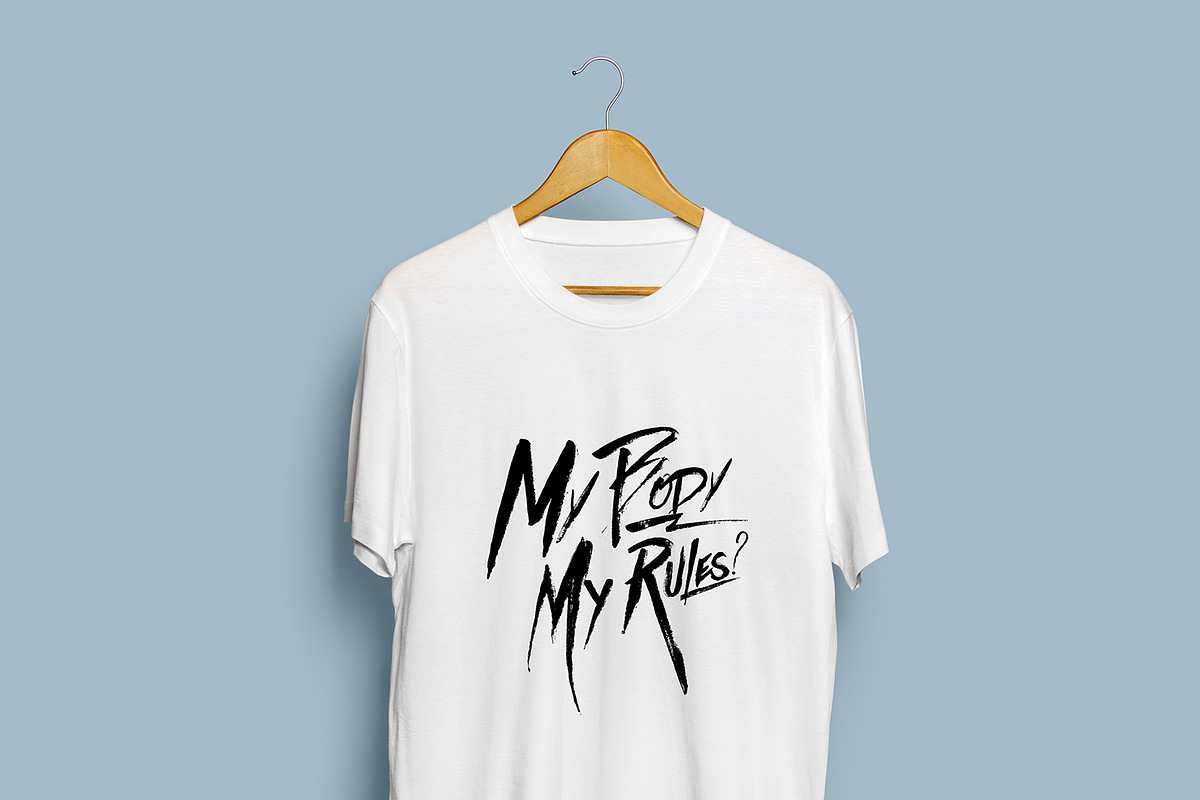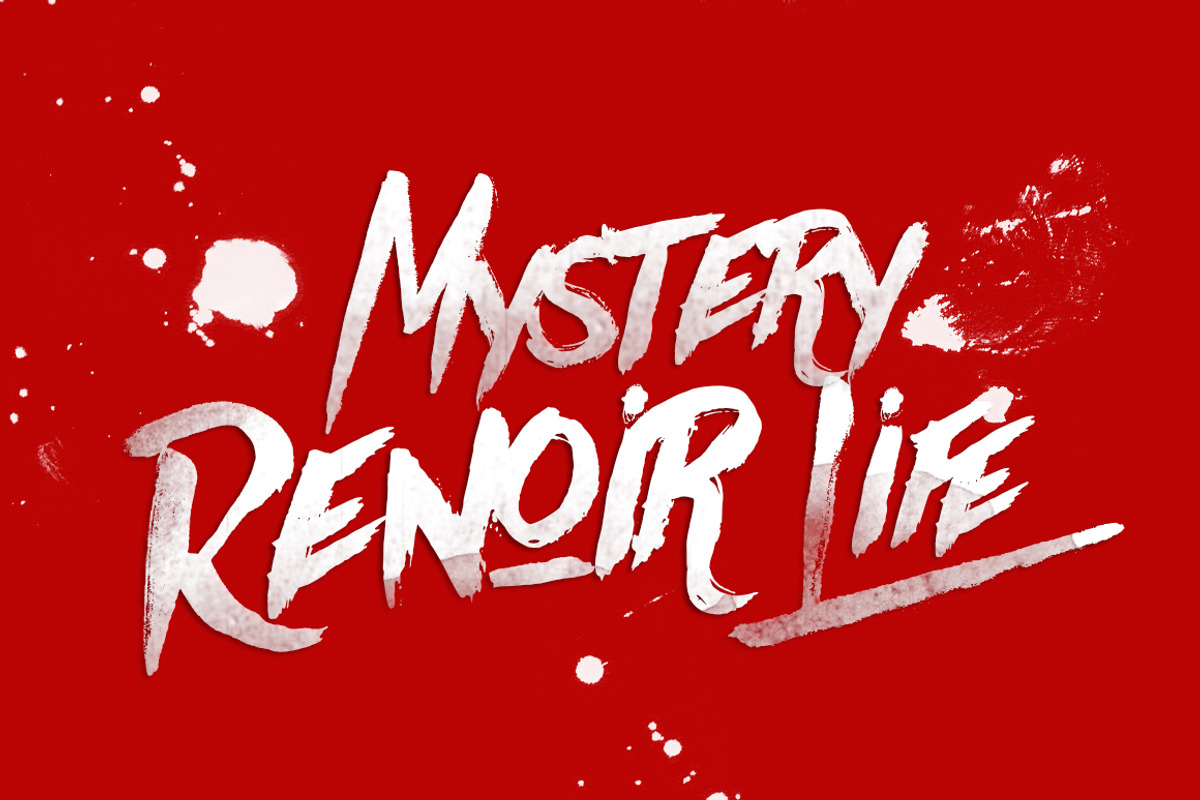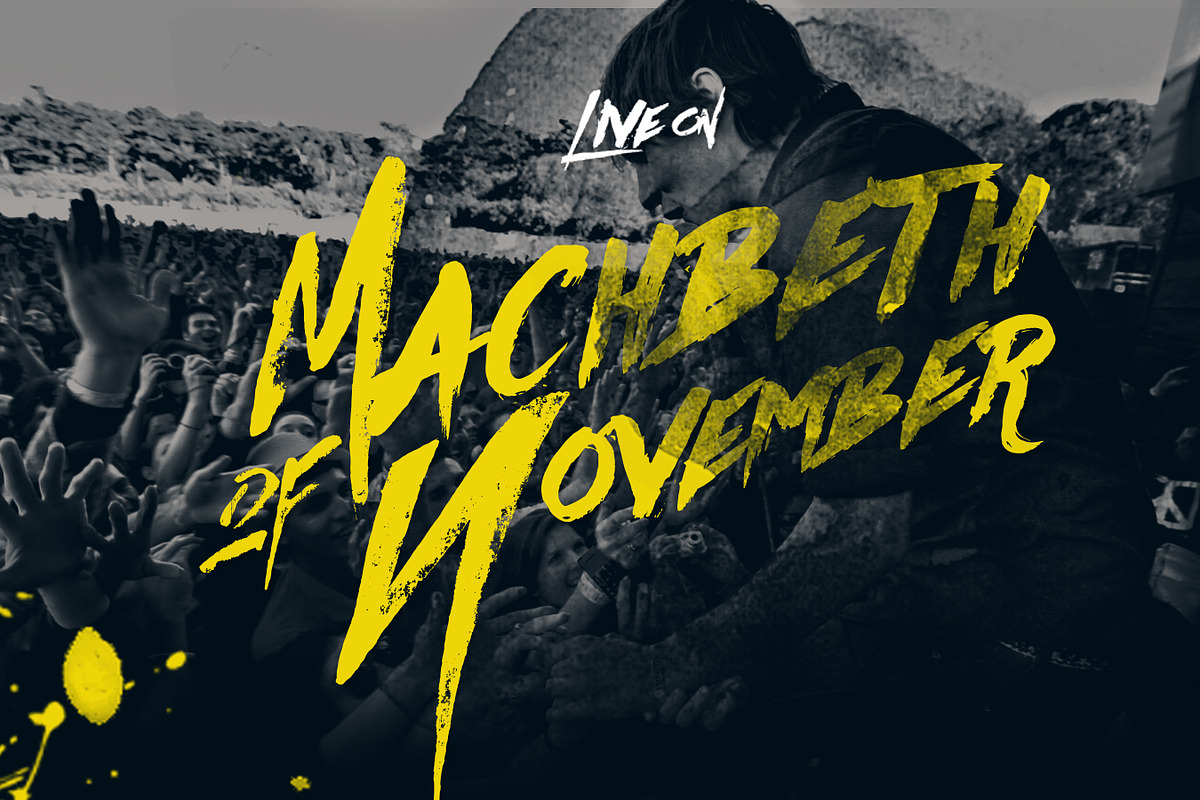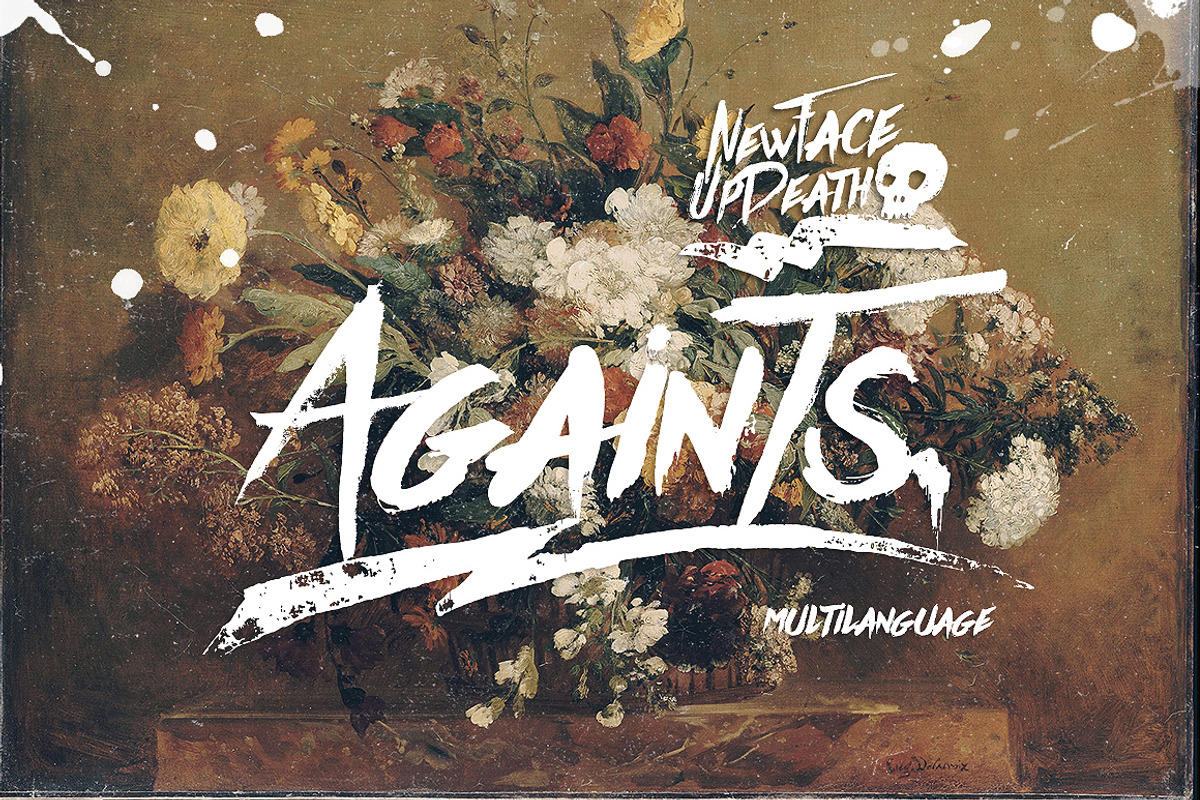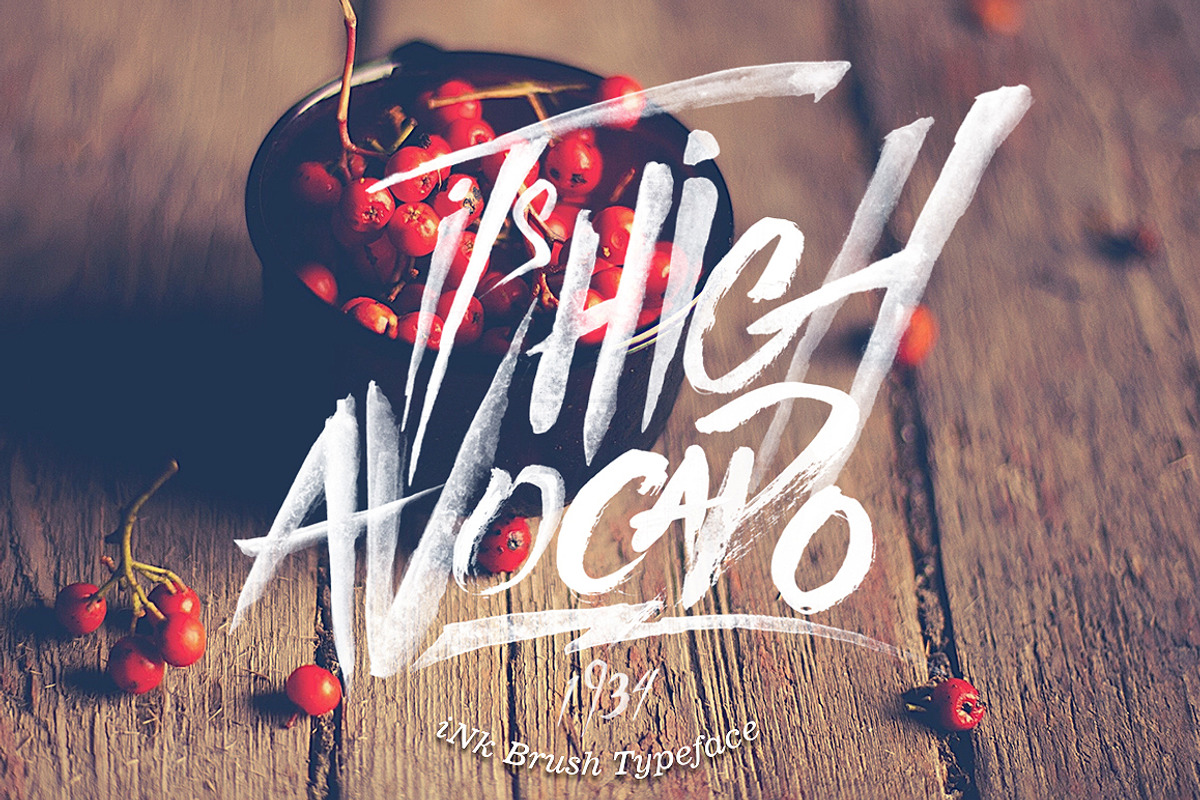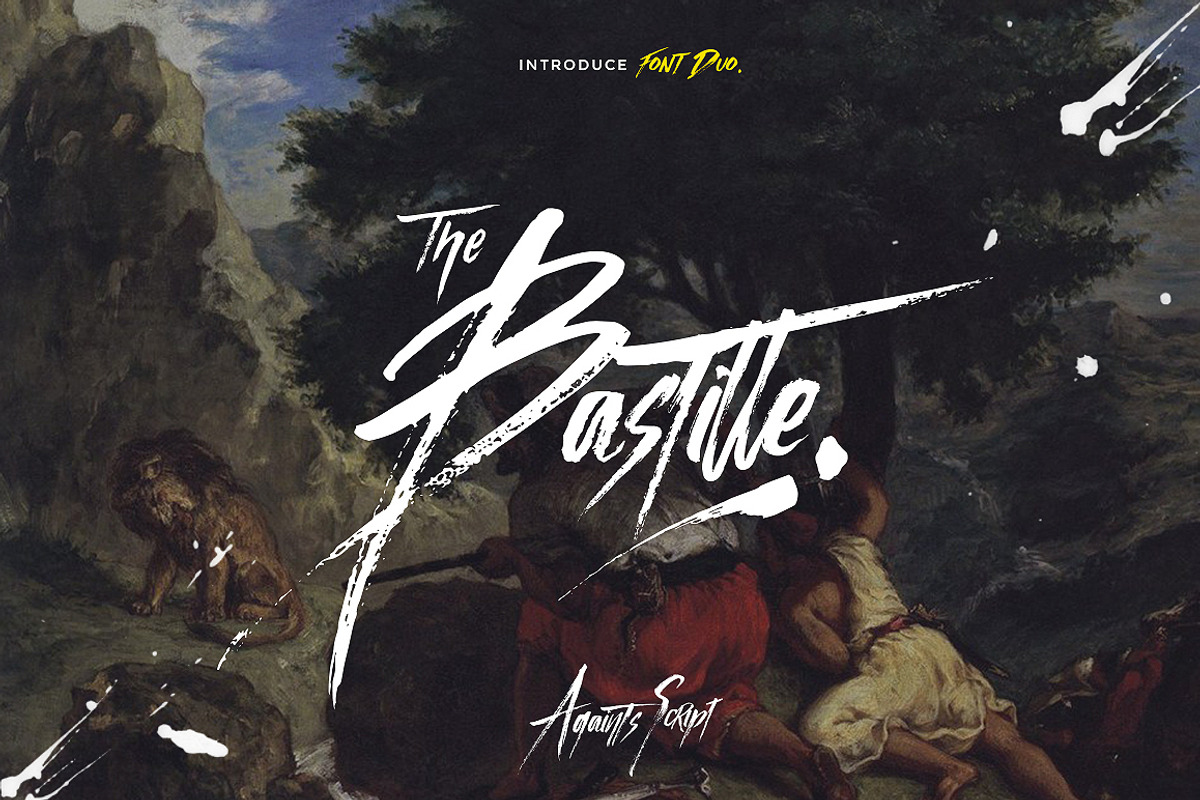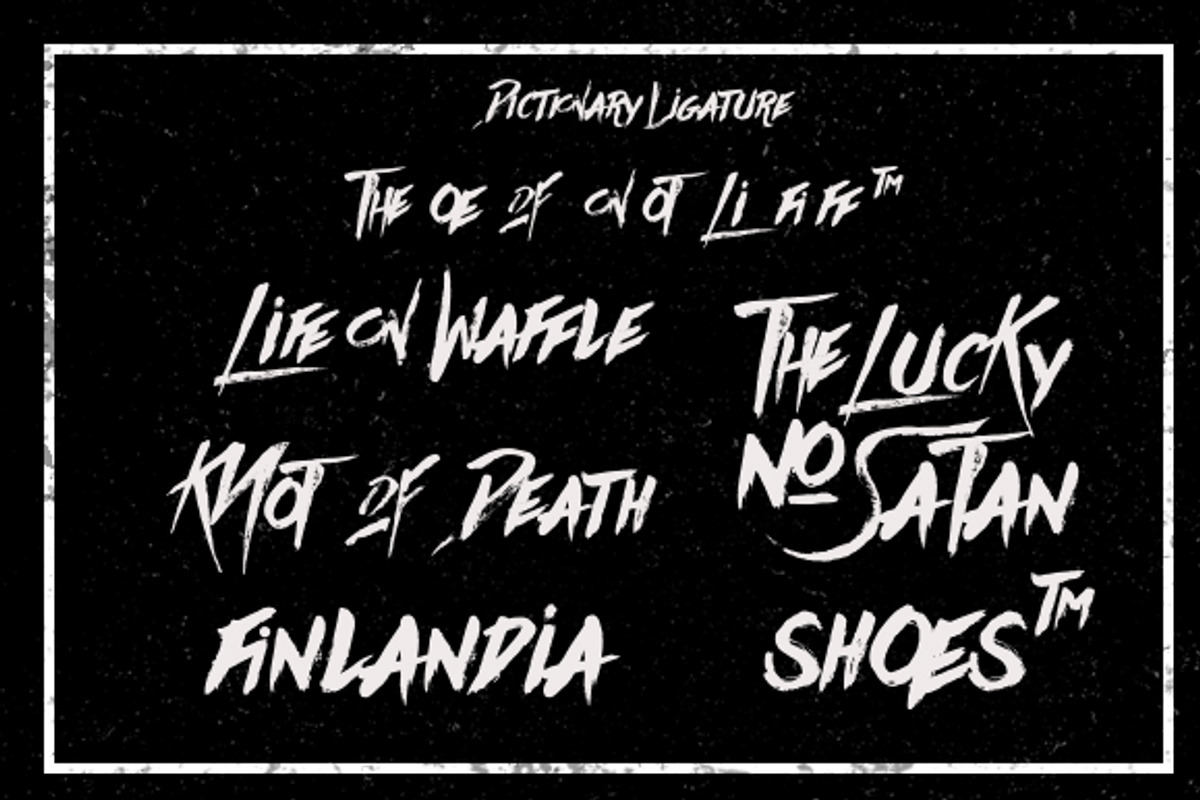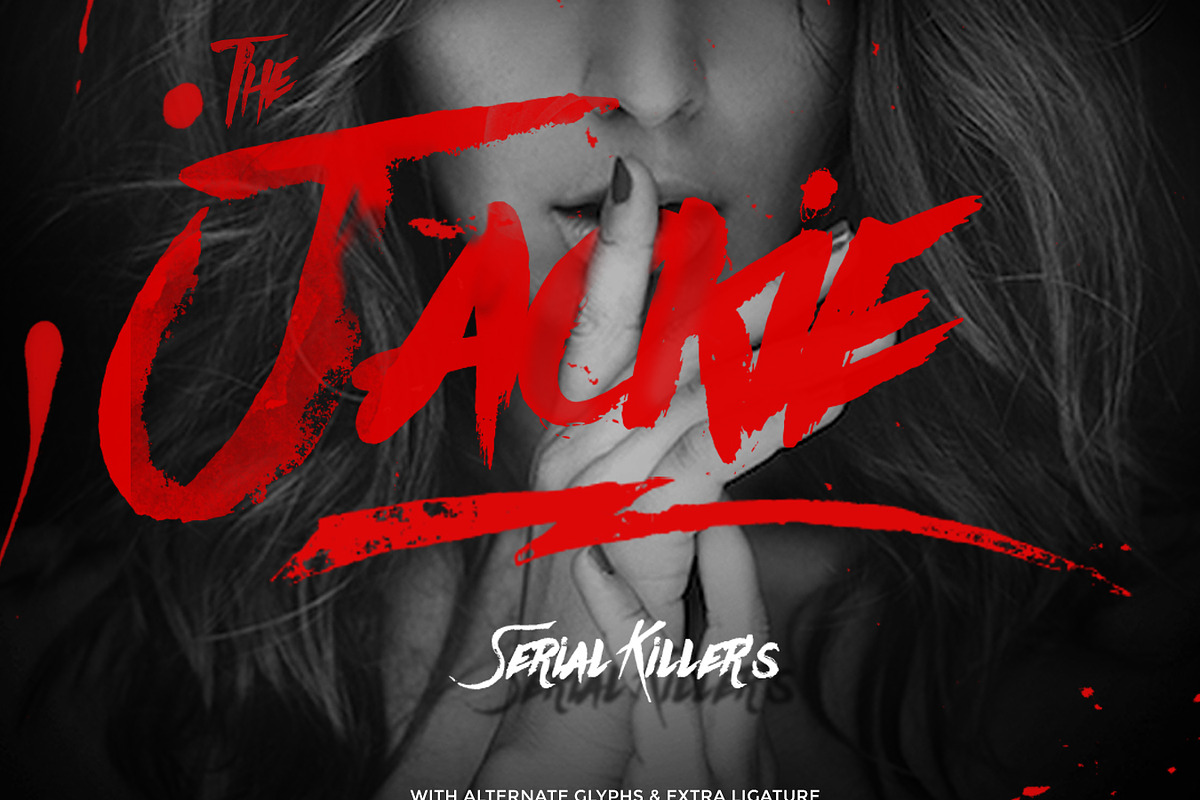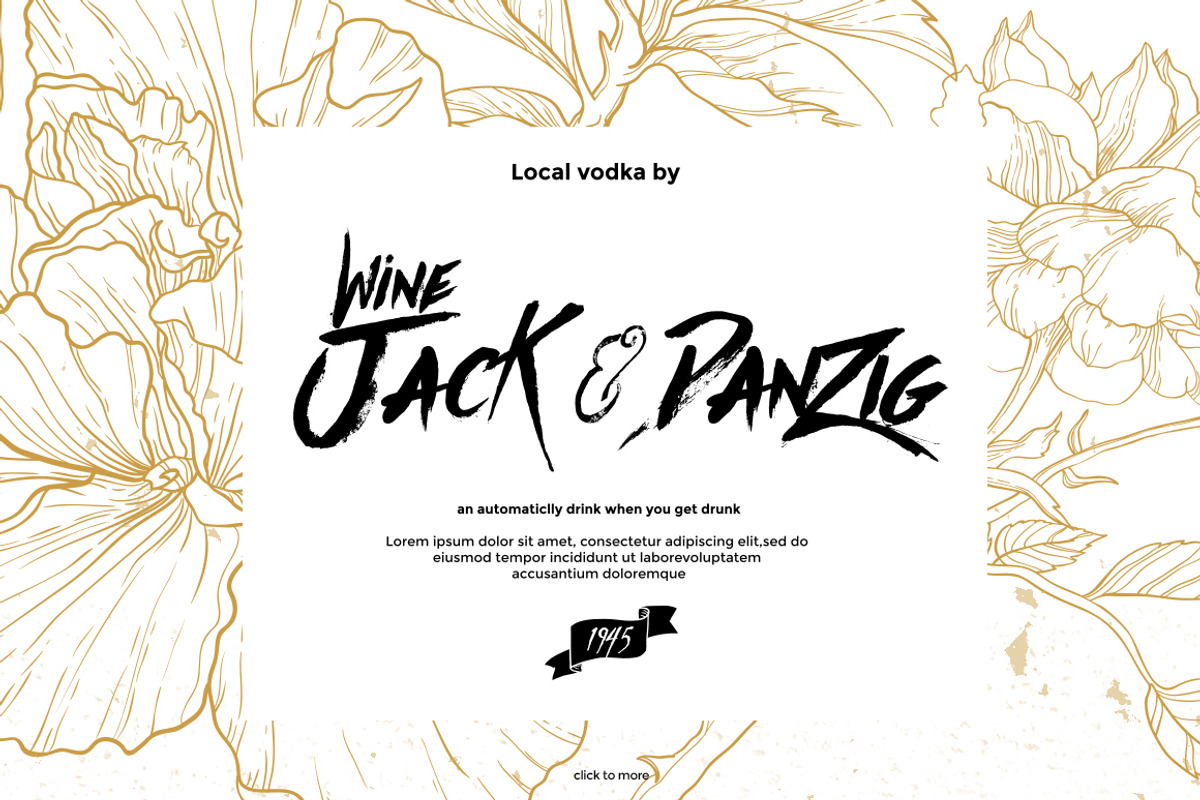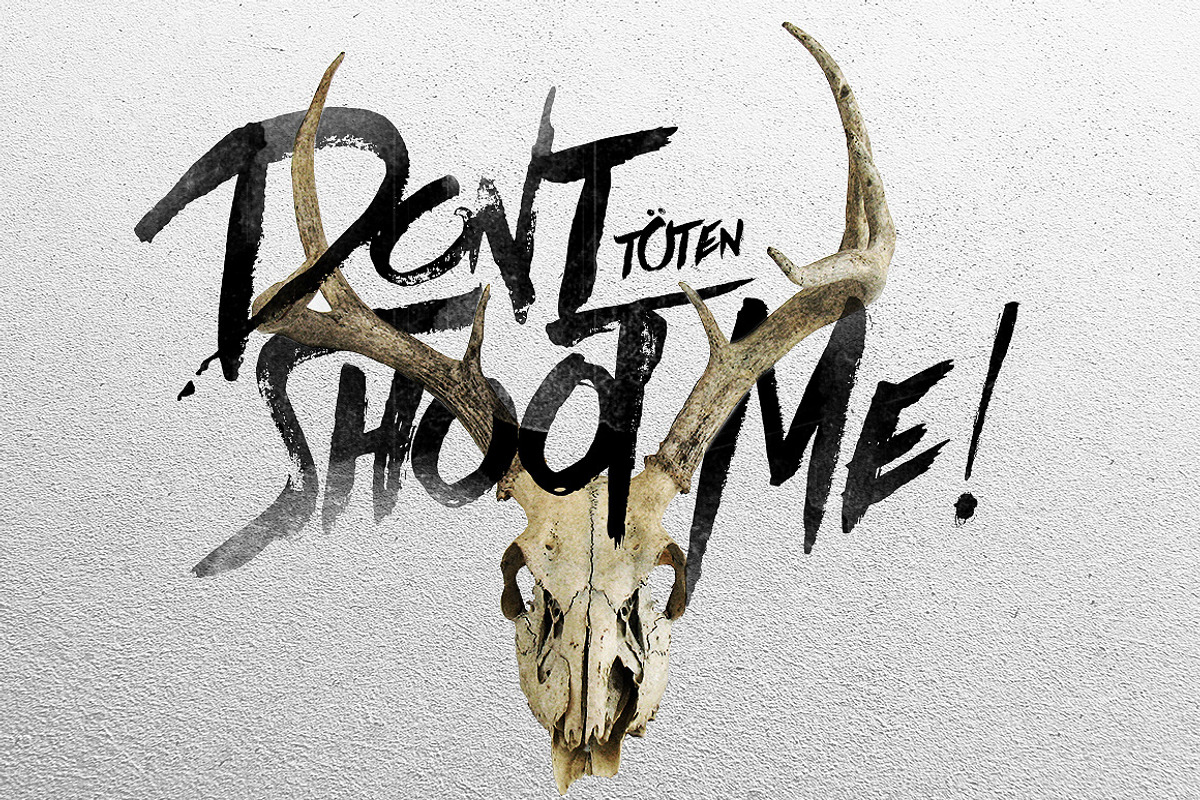
Againts Typeface
Againts Typeface was inspired from ink & tints manual handdrawn brush to make a natural messy, with alternate glyphs in some character of type could you make a stylish design, and extra Ligature could help to good display, uses for labeling, clothing, movie sceen, film title, gigs, or cover album, help inside
Update
- Added for big capslock alternate (see the all glyph on the display preview)
- Thunder dingbat so many requested to make this type, very glad to make it and hopelly usefull to use please re-download
- Multianguage Support (Display no.4)
Language Support Afrikaans, Somali , Albanian Breton, Catalan, Czech, Danish, Estonian, English, Finnish, French, German, Hungarian, Icelandic, Indonesian, Malay, Italian, Latvian, Lithuanian, Norwegian, Polish, Portuguese, Romanian, Scottish Gaelic, Slovak, Slovenian, Spanish, Swedish, Turkish, Welsh.